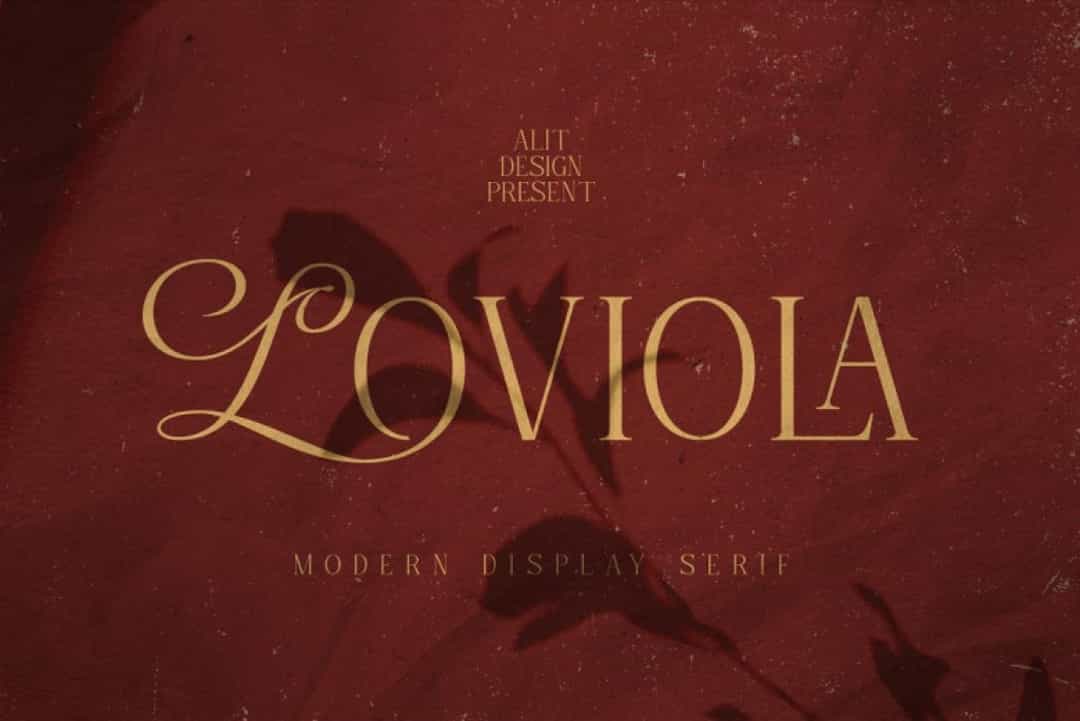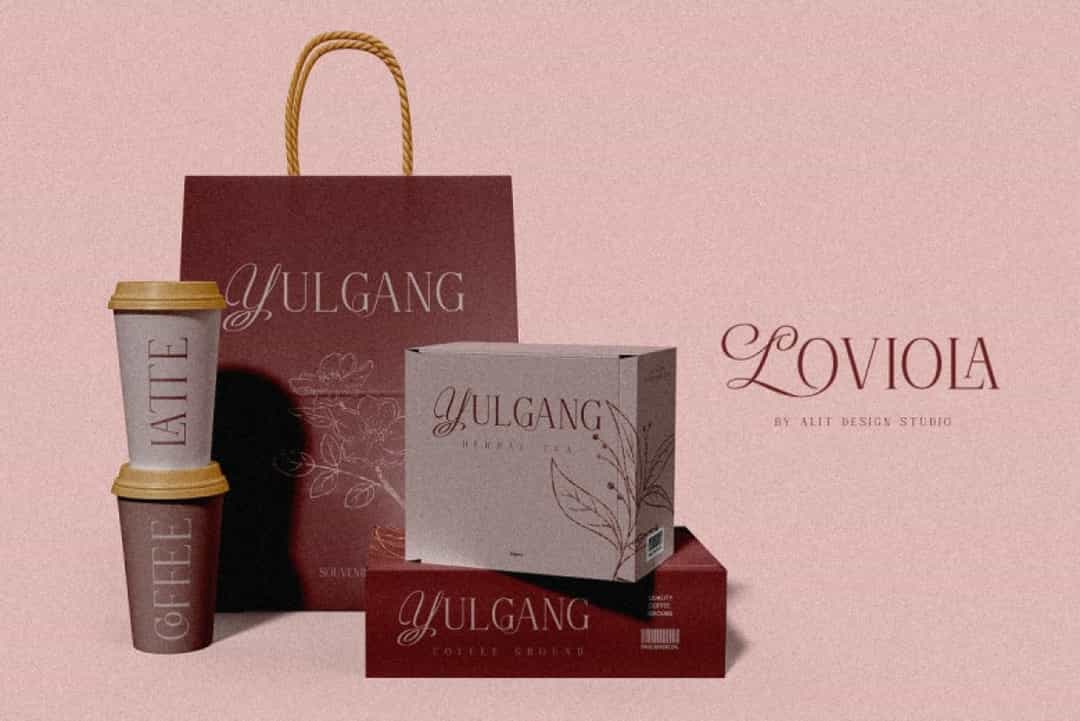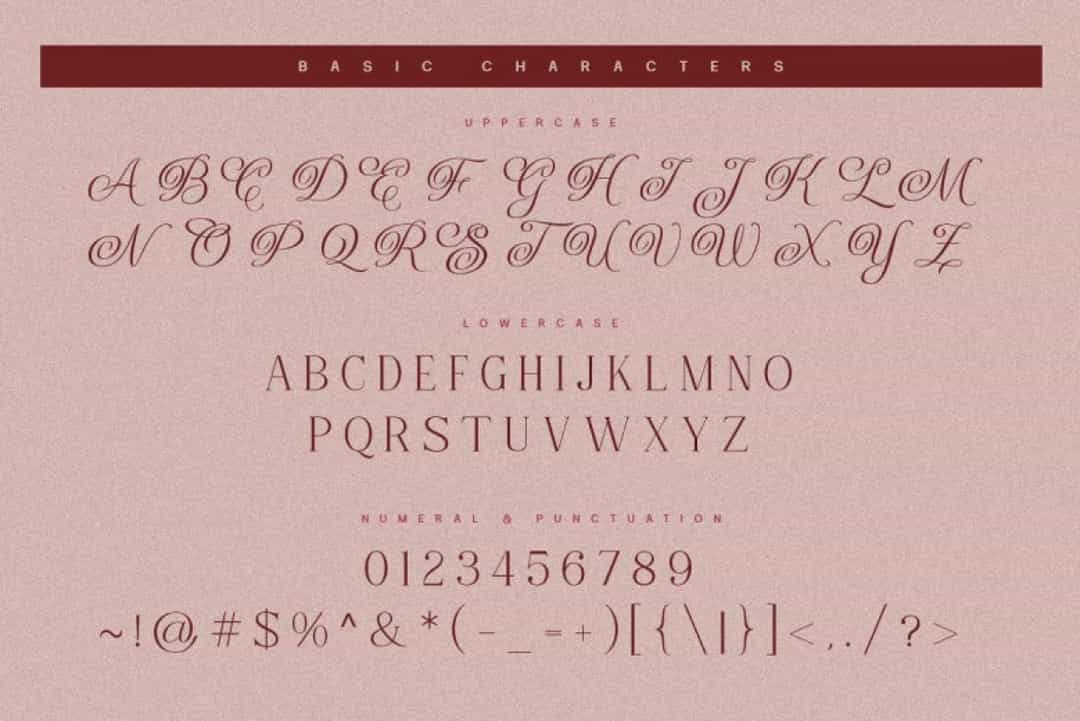
Loviola font was developed through the combination of sophisticated script letters with elegant serif font style. This font offers contemporary serif style letters paired with stylish script-style letters that makes Loviola font truly stand out and distinguishable from all other fonts on your computer.